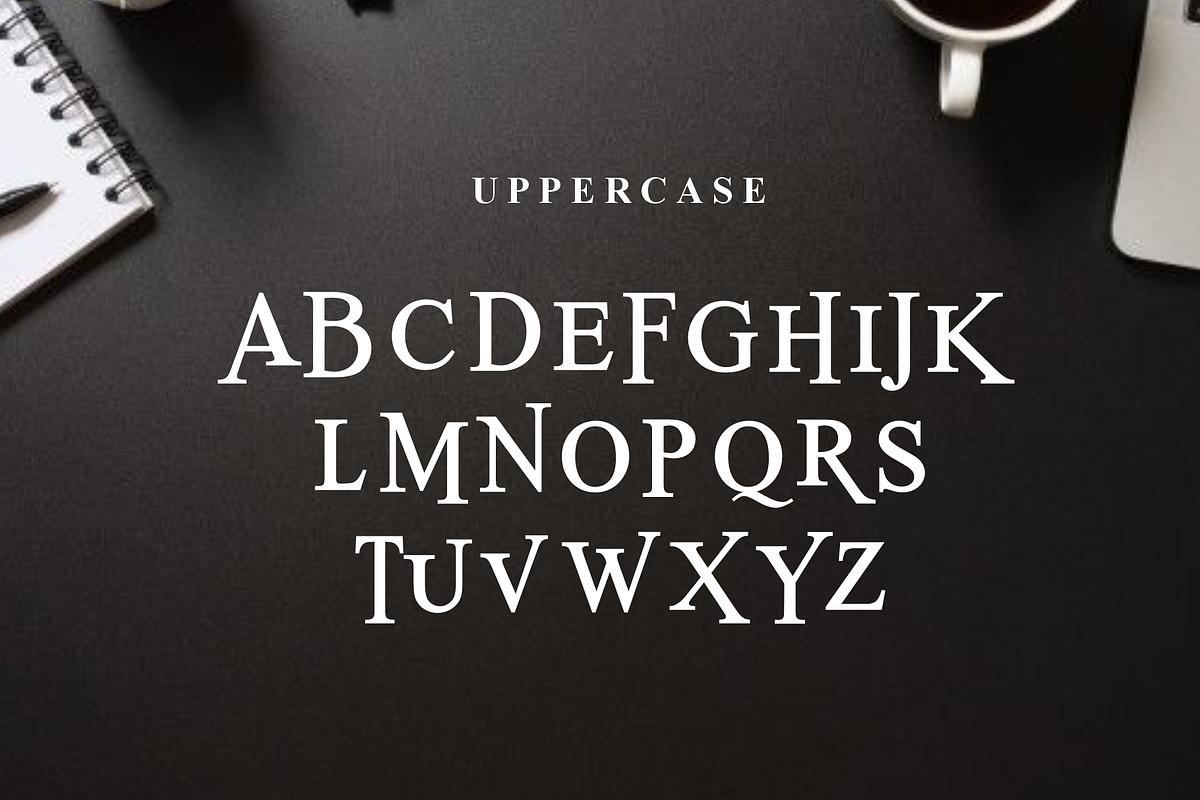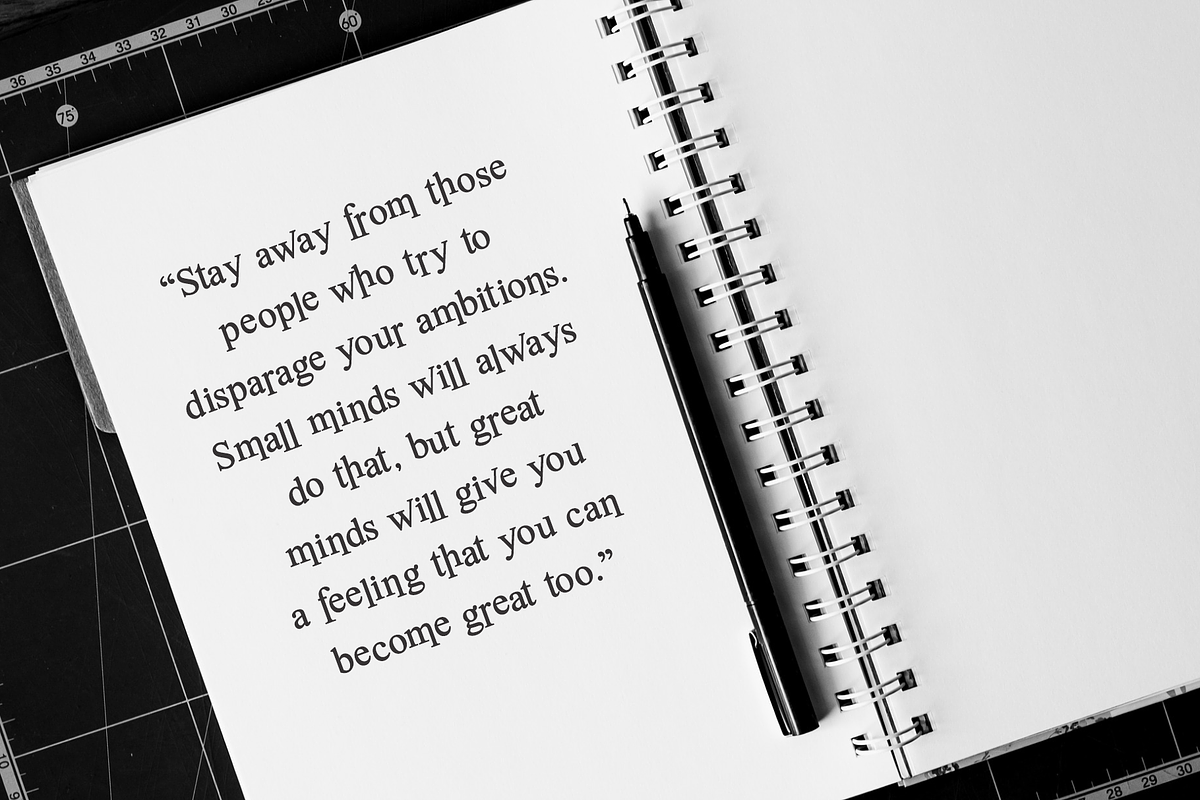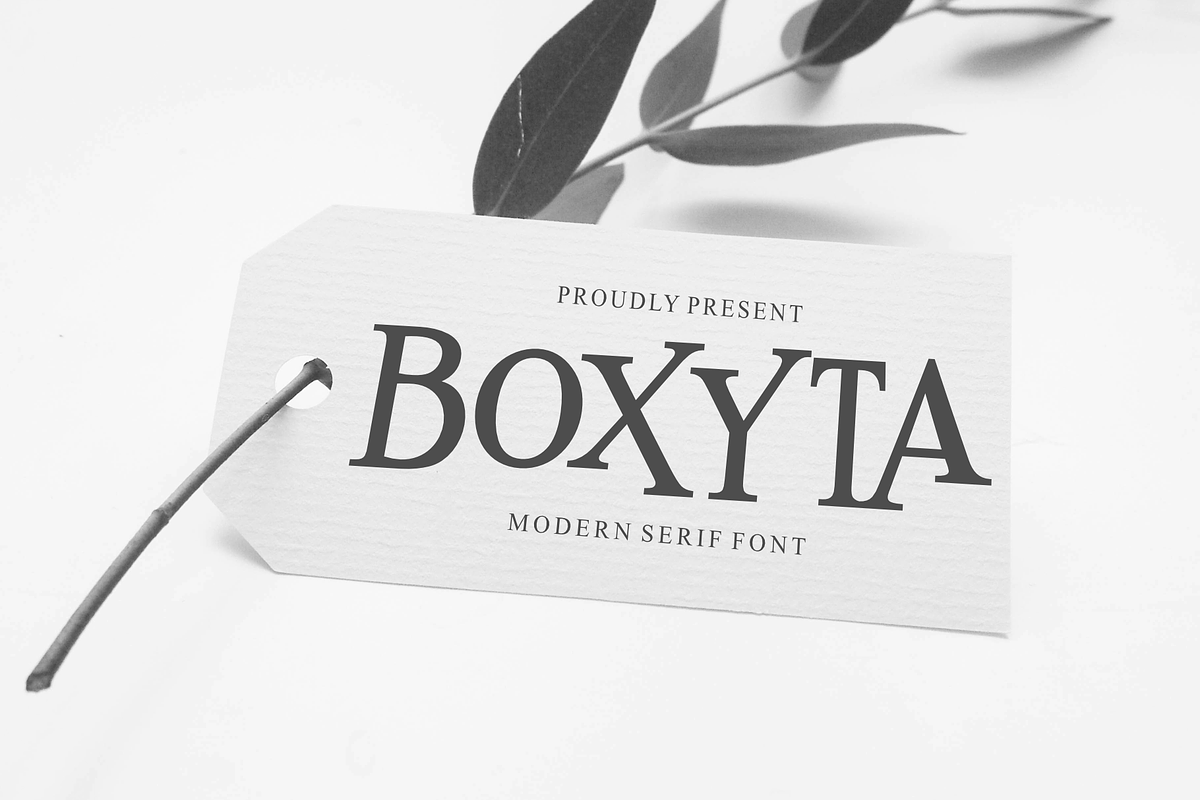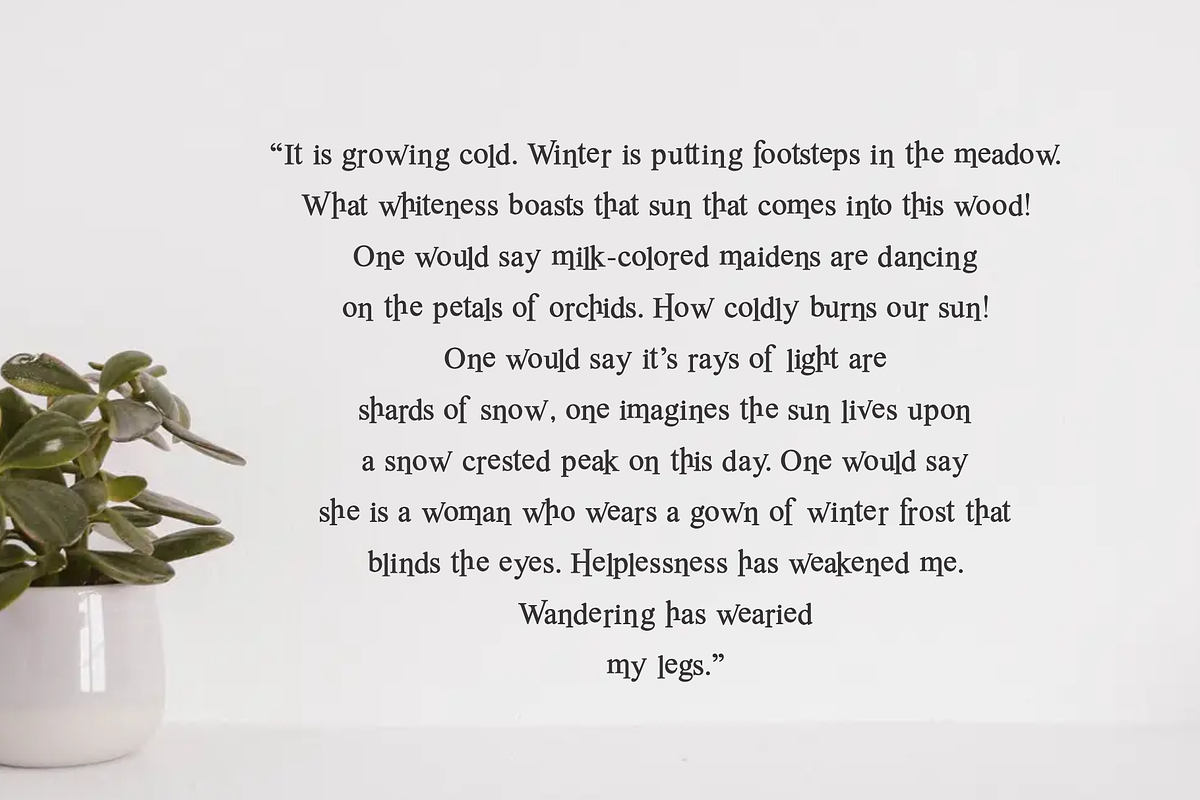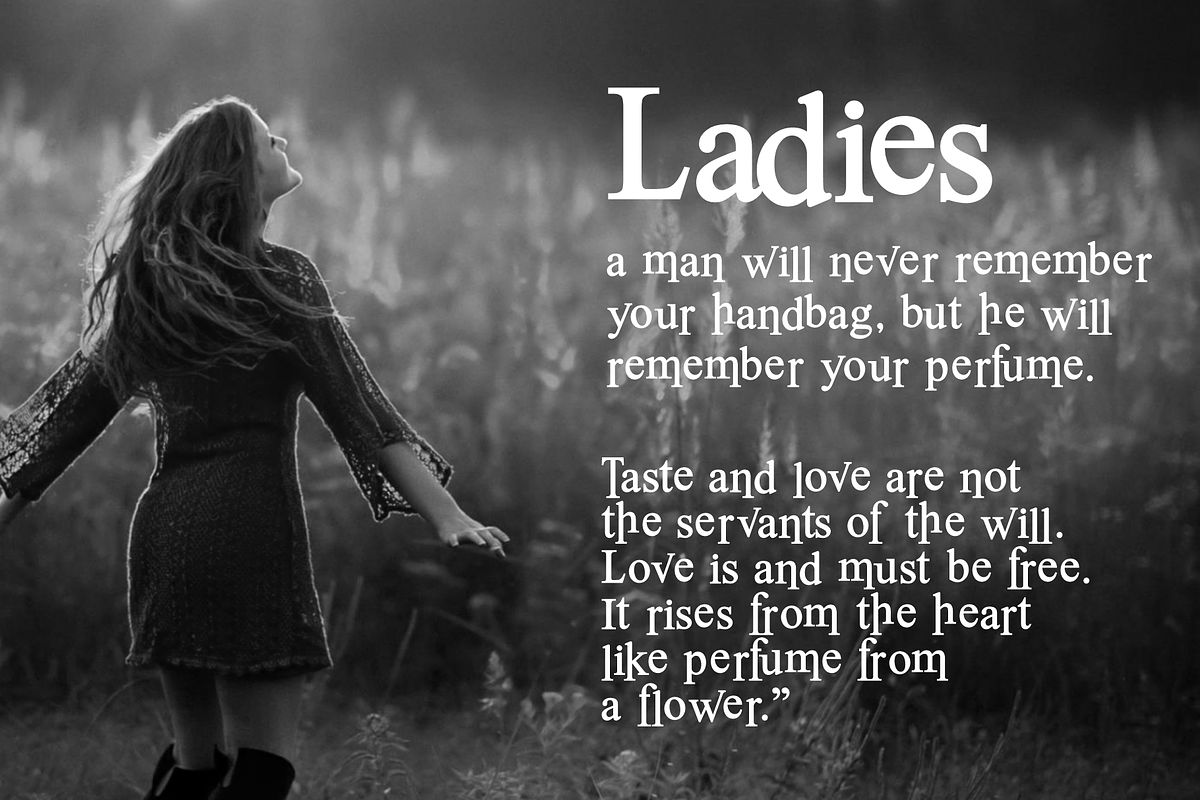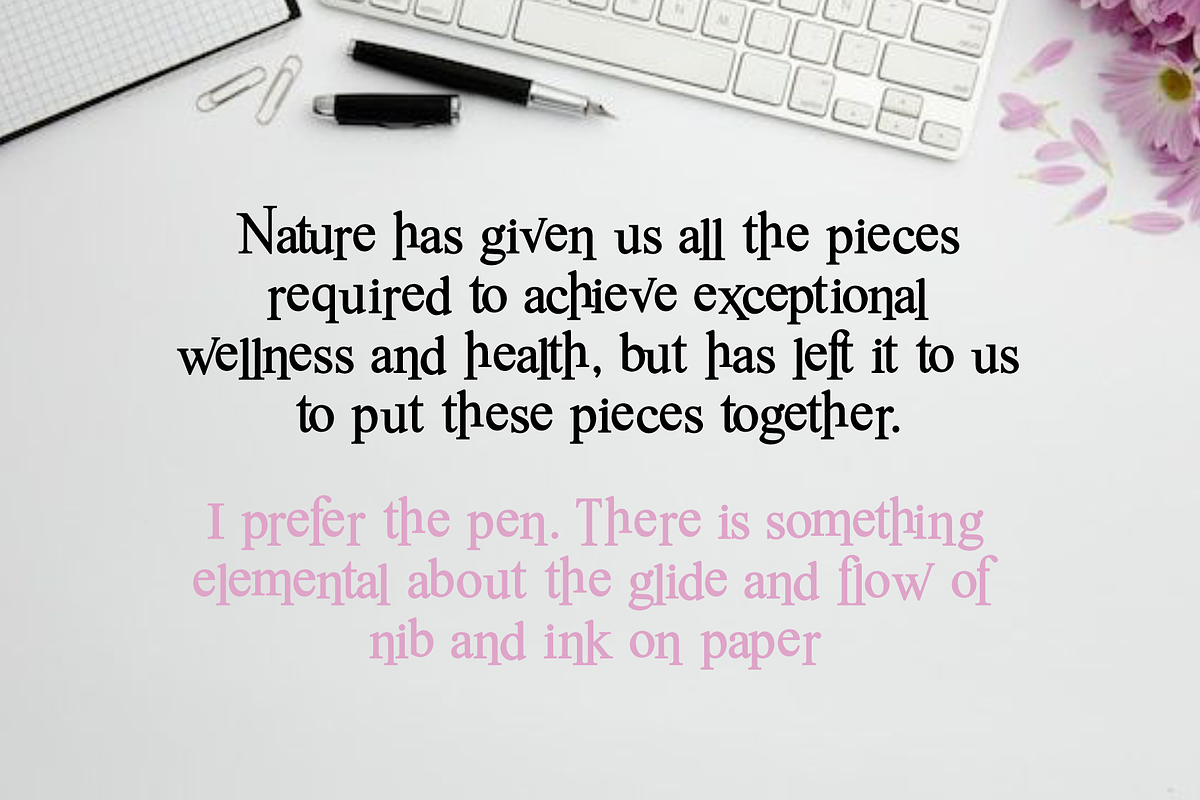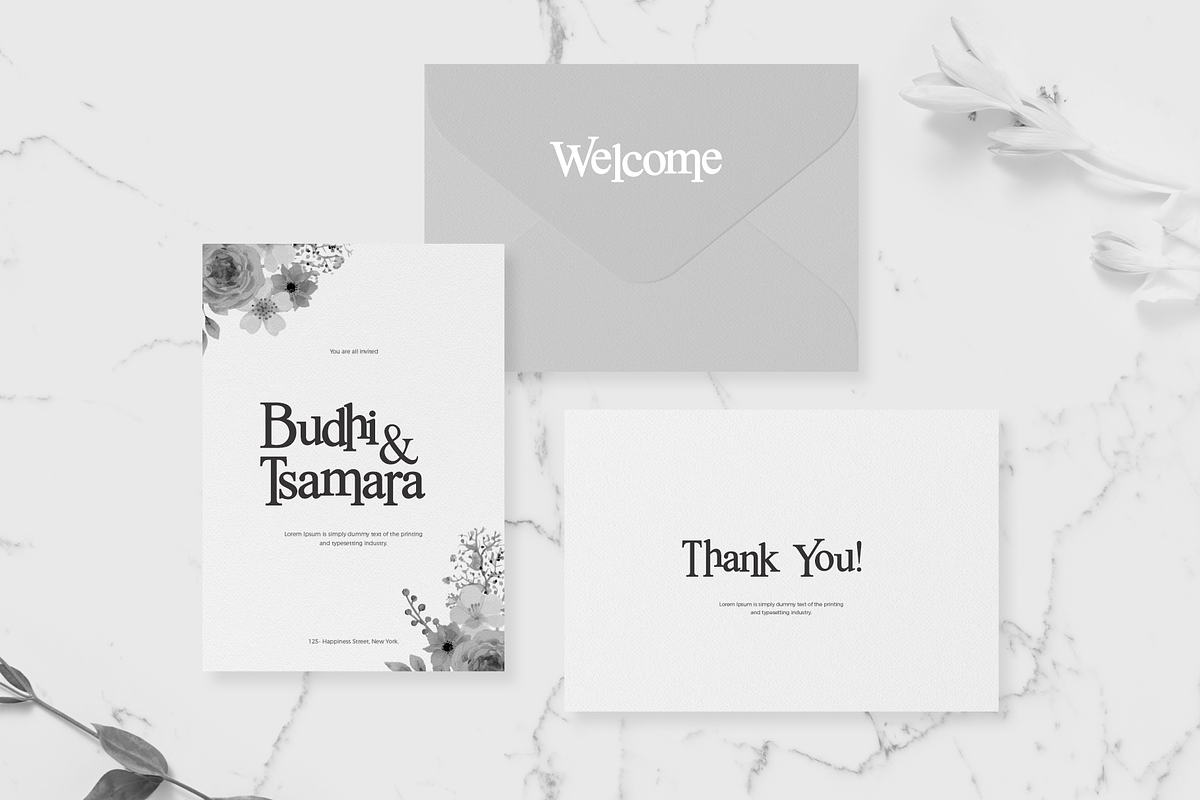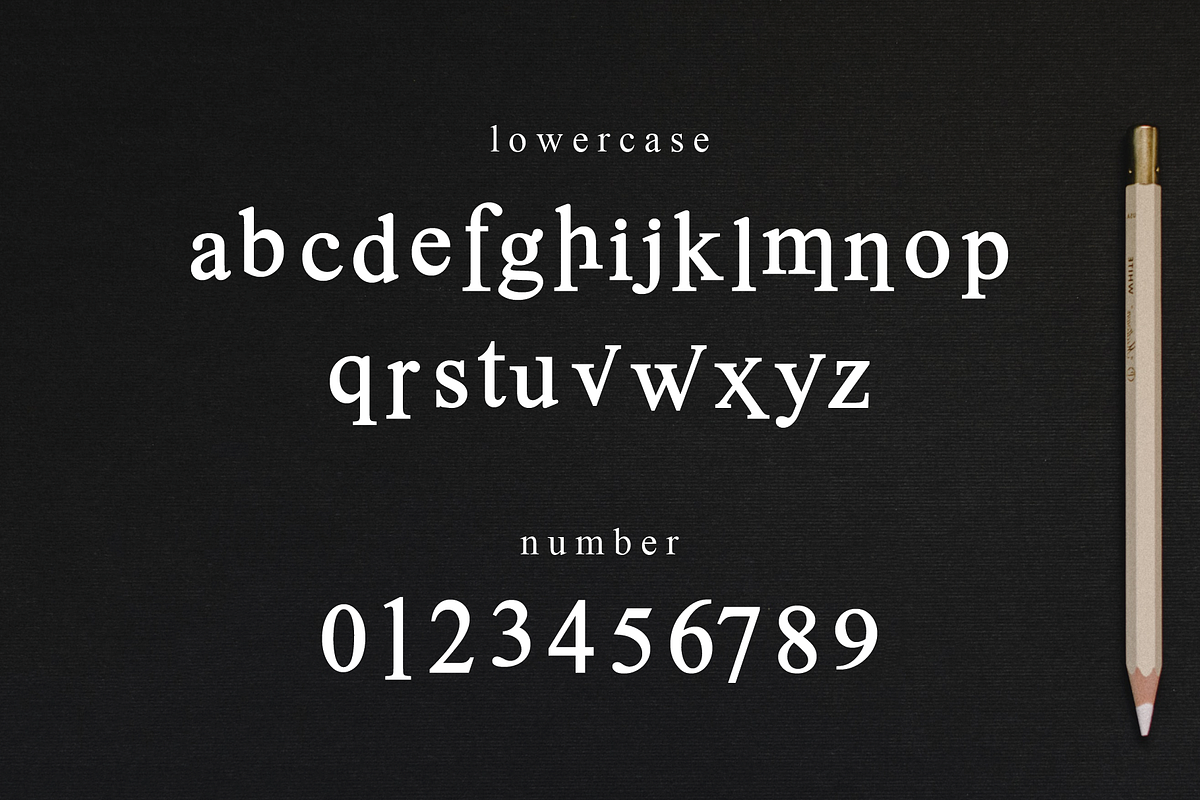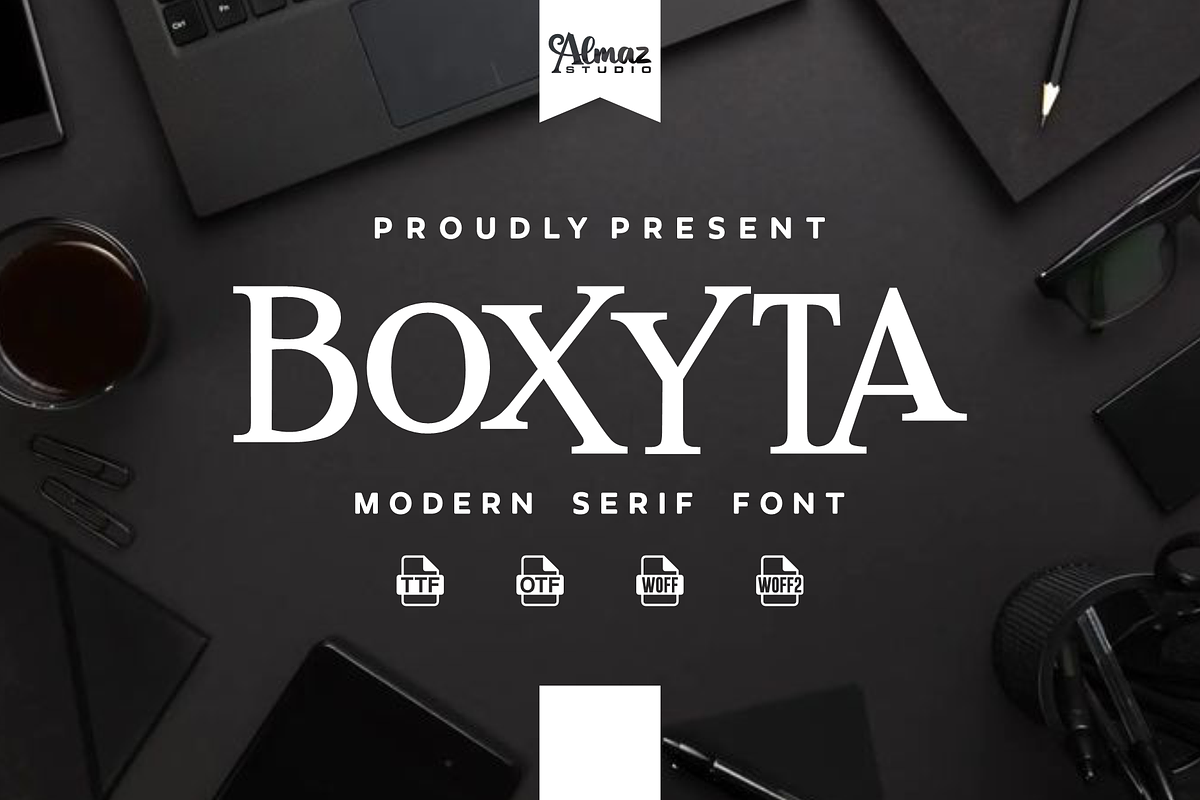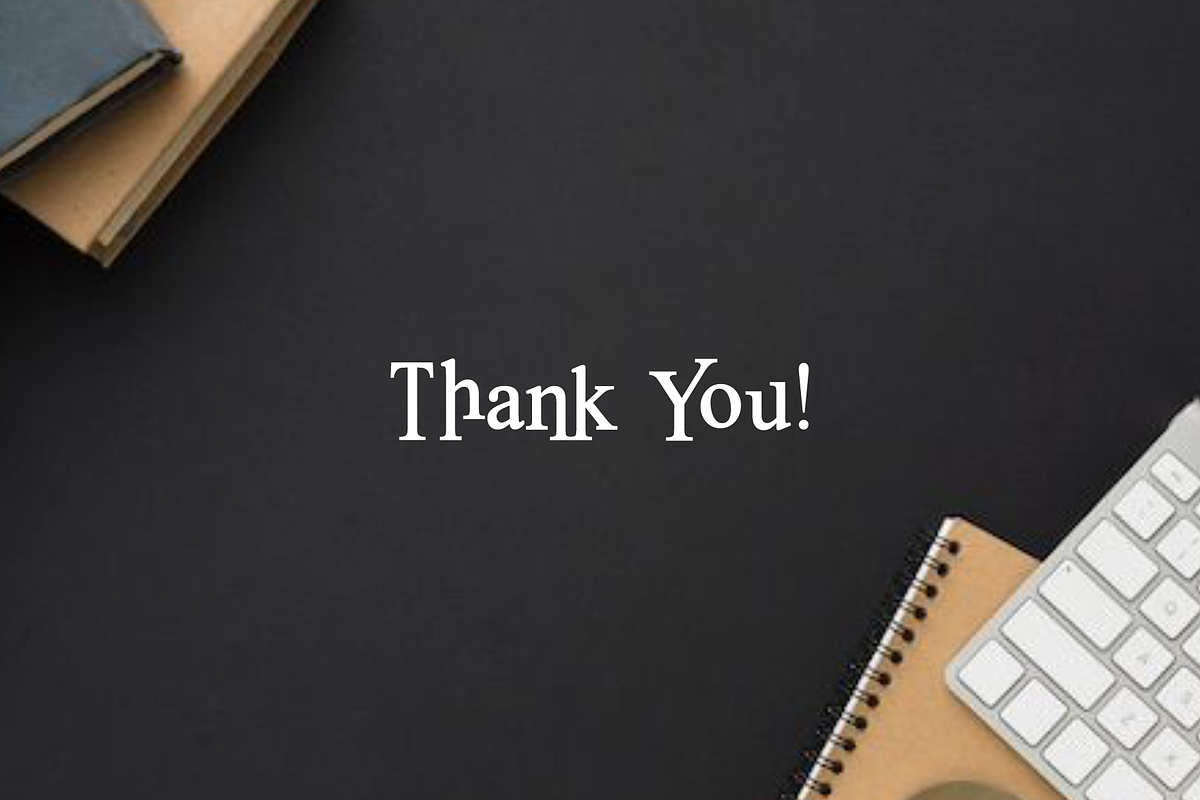
Boxyta
Boxyta ia a serif modern display font is a typeface that combines the elegance of traditional serif fonts with contemporary design elements, making it perfect for eye-catching headlines, branding, and high-end editorial layouts. These fonts typically feature high contrast between thick and thin strokes, refined letterforms, and unique stylistic details that enhance their visual appeal. Boxyta ia a Modern serif display fonts often exude sophistication, luxury, and professionalism. They may incorporate sharp or exaggerated serifs, geometric influences, or subtle curves that make them stand out in digital and print designs. Ideal for logos, fashion magazines, and upscale branding, serif modern display fonts bring a perfect balance of classic elegance and modern aesthetics.